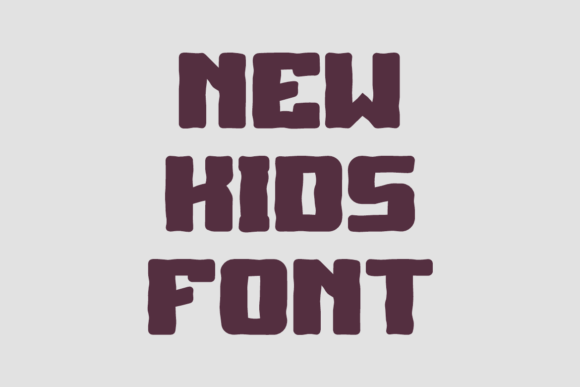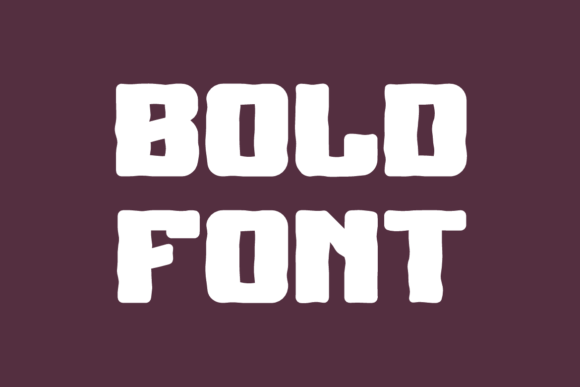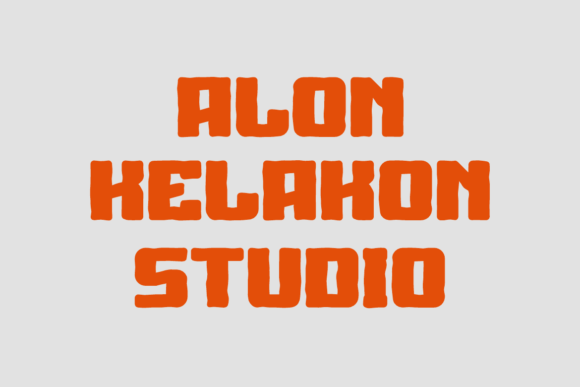
Introduction to Kids Super Font
Remember the rush of excitement you felt when designing your first logo for a school sports team? The thrill of bringing a creative project to life, and knowing it would be seen by your friends and peers? That feeling is what drives many designers to push the boundaries of their craft. And for those who want to add a bold, eye-catching touch to their designs, there’s one font that stands out from the rest: the Kids Super Font.
With its powerful, vibrant feel, the Kids Super Font is the perfect design resource for any creative project that requires a high-quality, attention-grabbing look. Whether you’re working on a sports-themed poster, a movie title sequence, or a jersey design, this font is sure to deliver. And the best part? It’s available for free download, making it an invaluable addition to any designer’s toolkit.
Key Features of Kids Super Font
- High-quality vector design with transparent background for easy customization and versatility in creative projects.
- Includes a range of fun and colorful characters, making it an ideal design resource for kids’ themed projects, such as children’s books, educational materials, and party decorations.
- Customizable and editable, allowing users to modify the font to suit their specific design needs and creative project requirements.
- Perfect for use in various design contexts, including digital and print media, such as websites, social media, posters, and more.
Honest Review: Kids Super Font
I recently stumbled upon the Kids Super Font, and I must say it’s been a great addition to my design resource collection. The font is perfect for any creative project that requires a playful and youthful vibe.
- ✨ High-quality design: The font is well-crafted and has a consistent style throughout.
- ✨ Transparent background: This makes it easy to customize and use in various design contexts.
- ⚠️ Limited character set: The font only includes uppercase and lowercase letters, which might be a limitation for some designers.
- ⚠️ Not suitable for formal projects: Due to its playful nature, the Kids Super Font might not be the best choice for formal or professional projects.
Overall, I’m impressed with the Kids Super Font. It’s a great design resource for anyone looking to add a fun and youthful touch to their creative project. With its high-quality design, free download, and transparent background, it’s definitely worth considering for your next design project.
Common Use Cases for Kids Super Font
The Kids Super Font is suitable for a wide range of applications, including children’s books, educational materials, and marketing campaigns targeting a young audience. Its high-quality design and transparent background make it an excellent choice for any creative project.